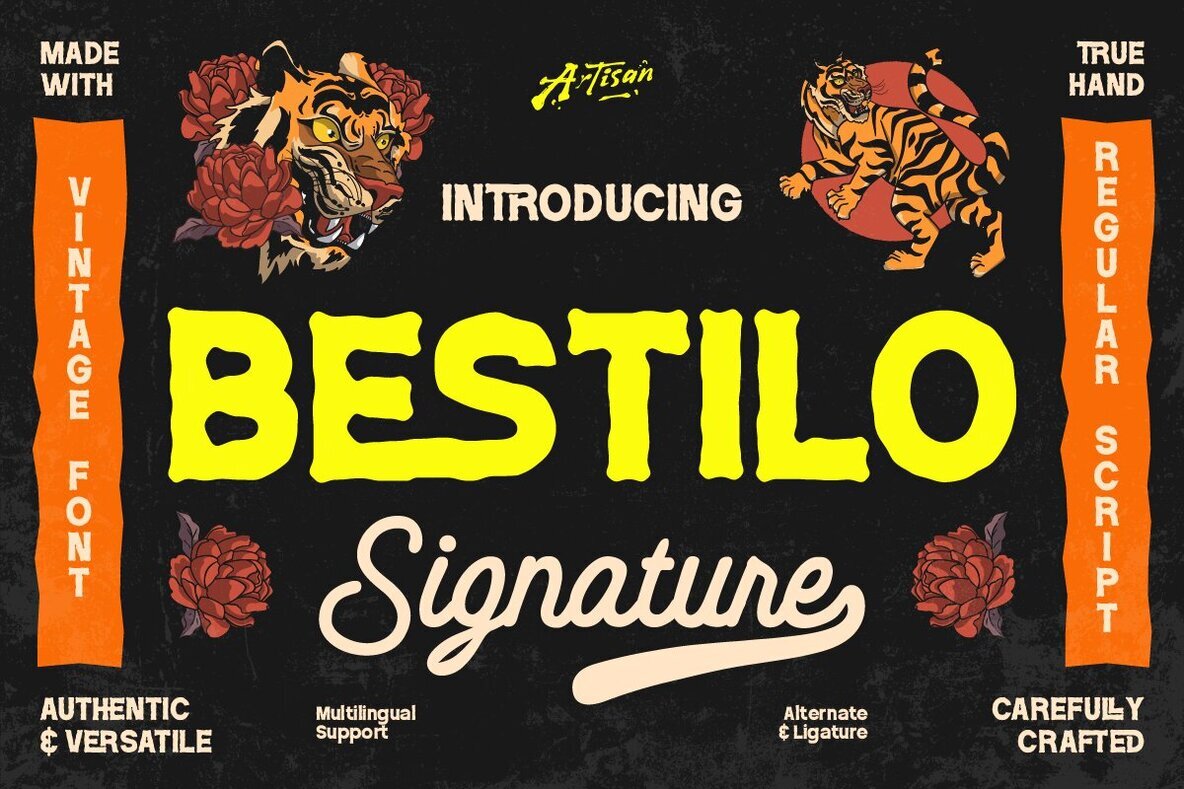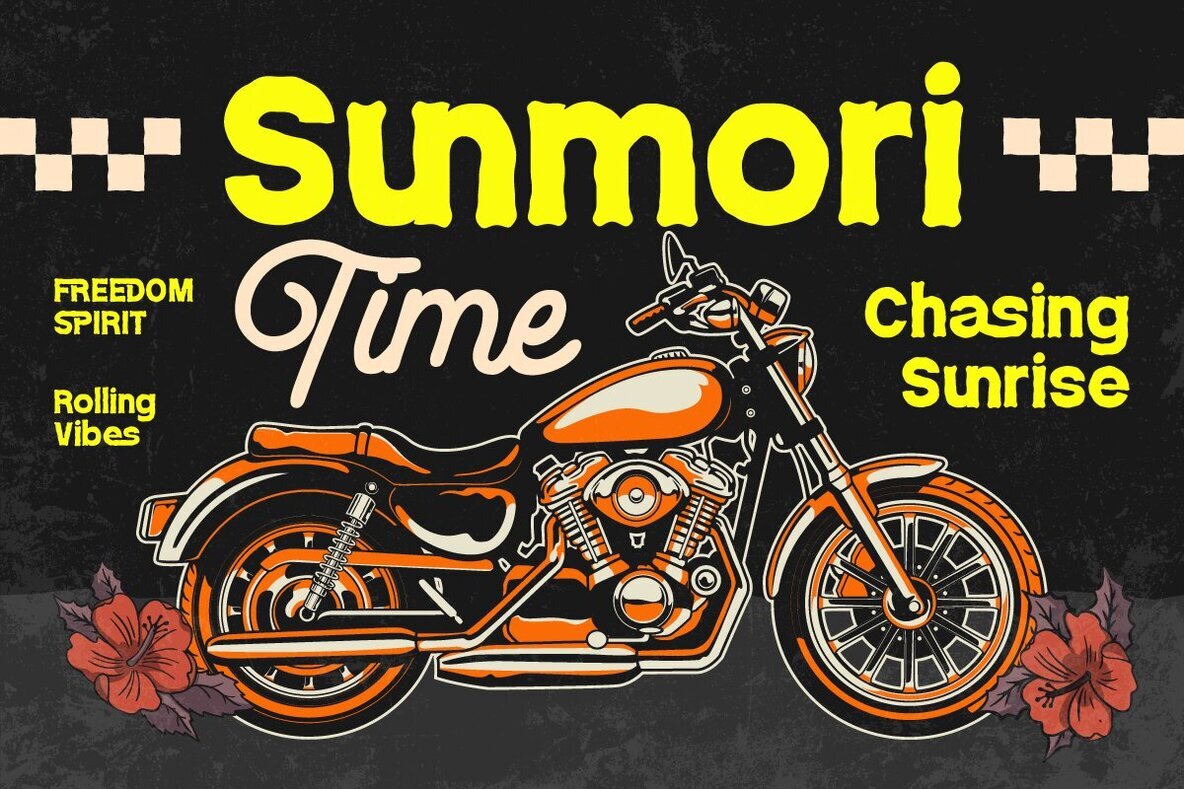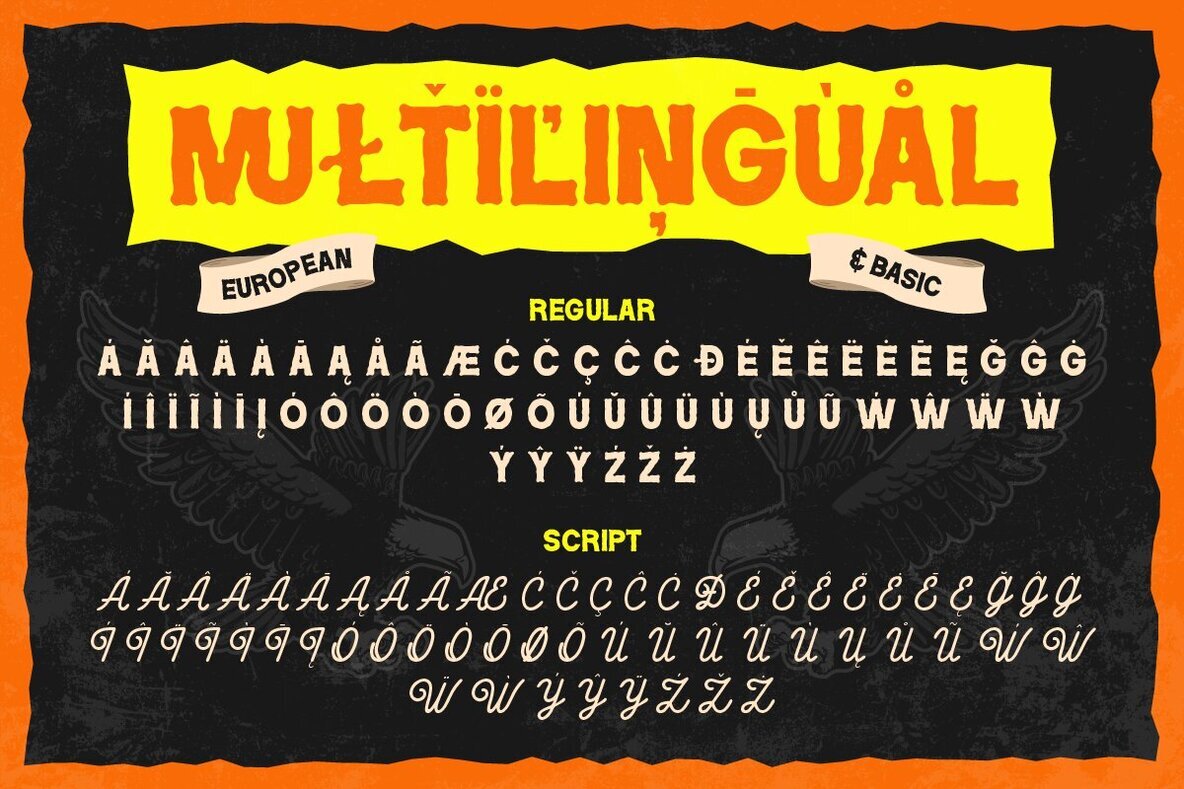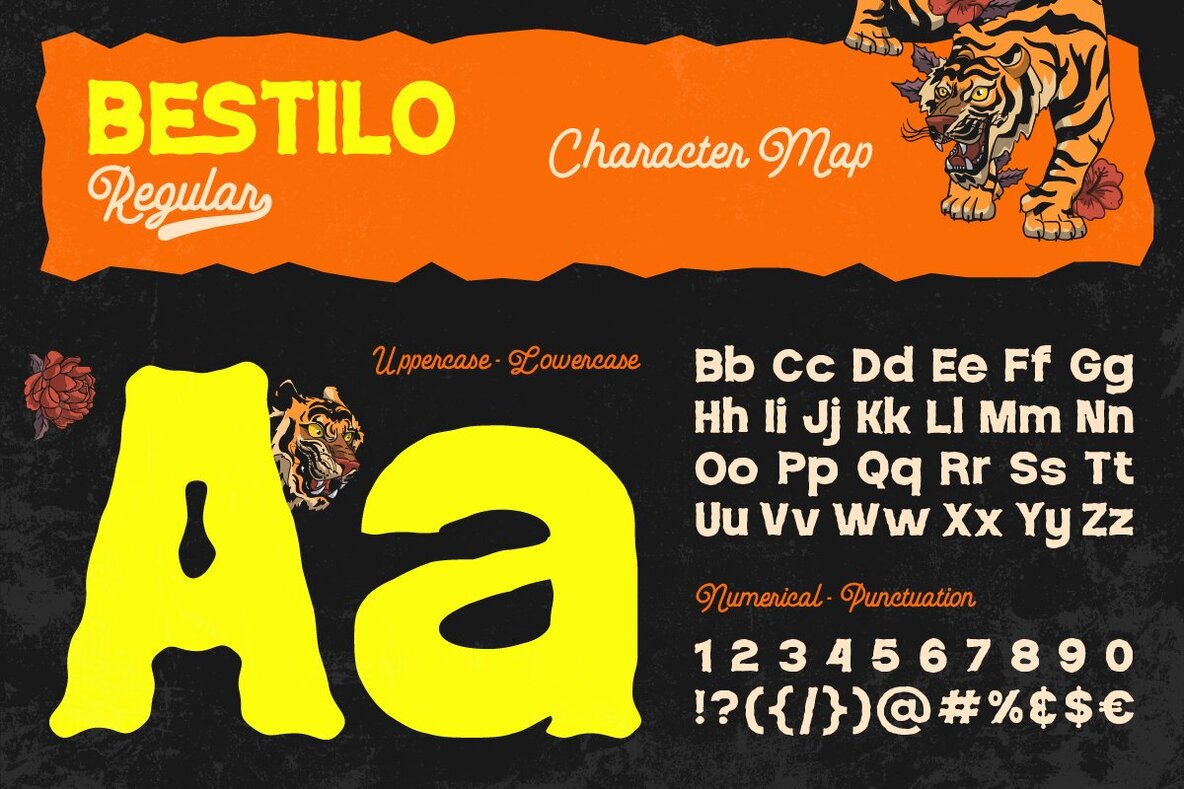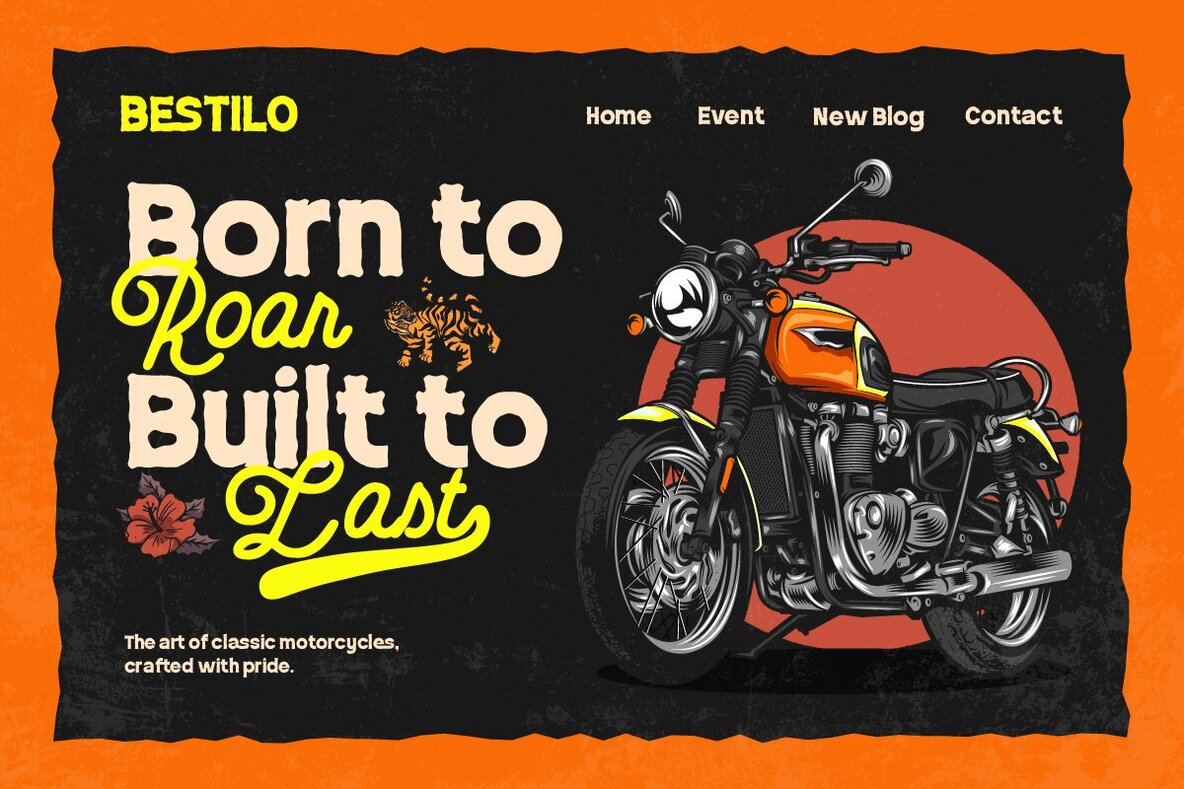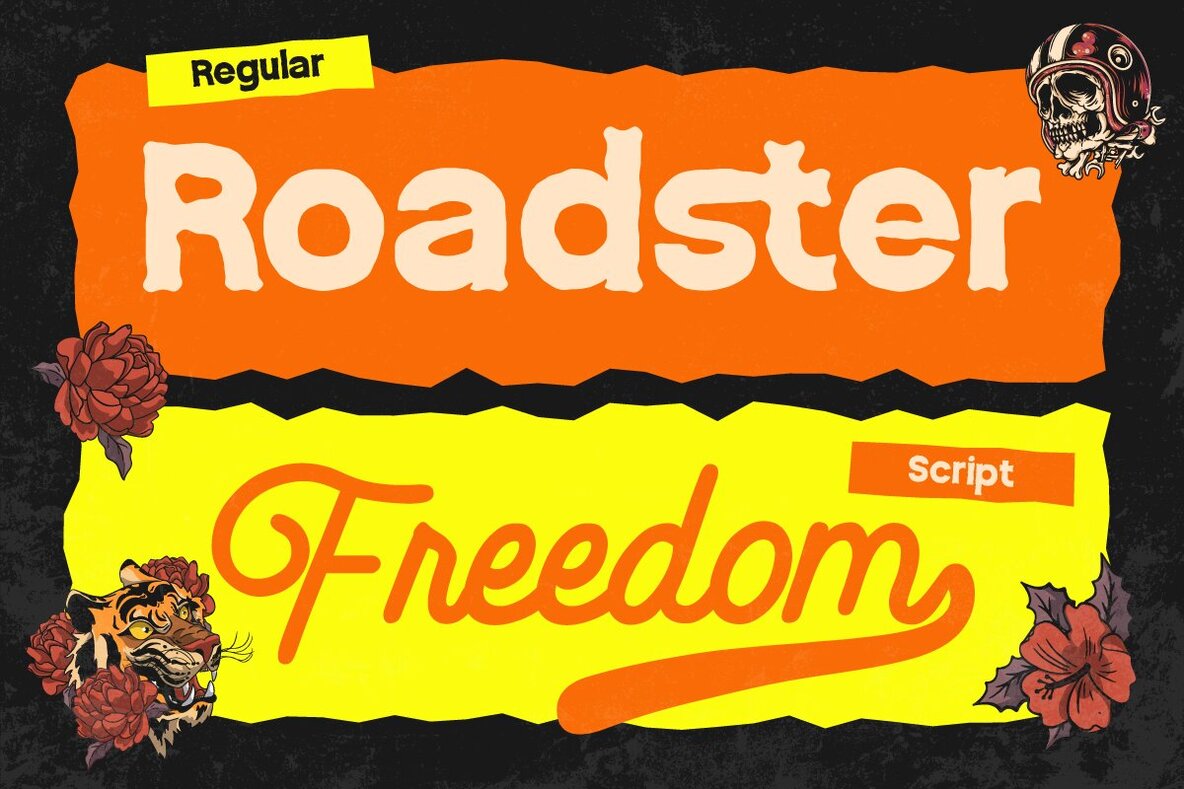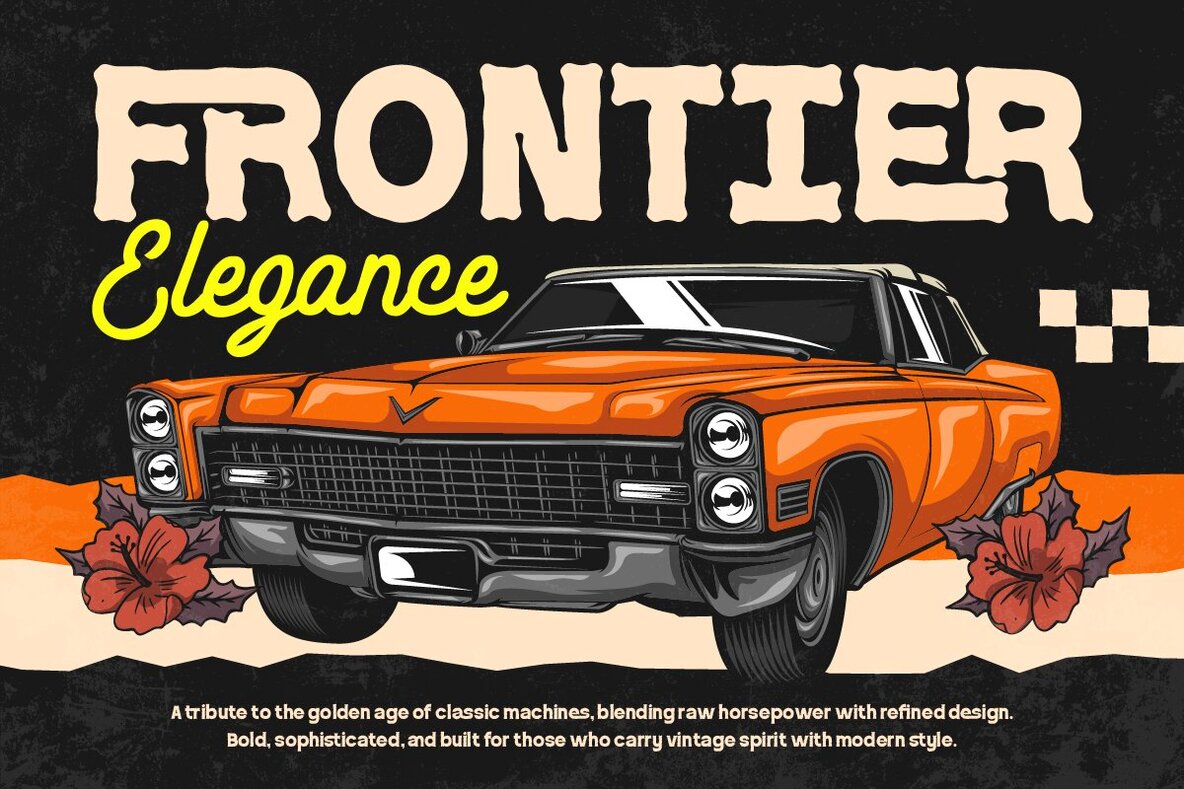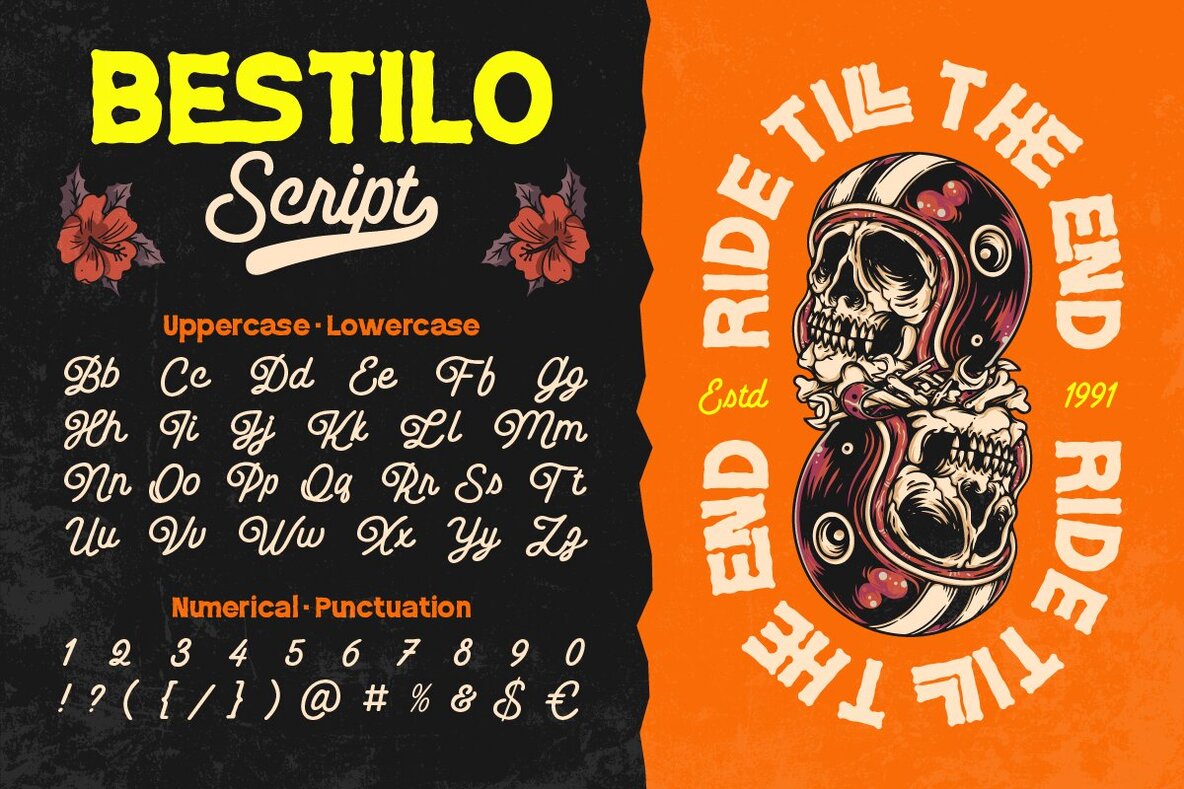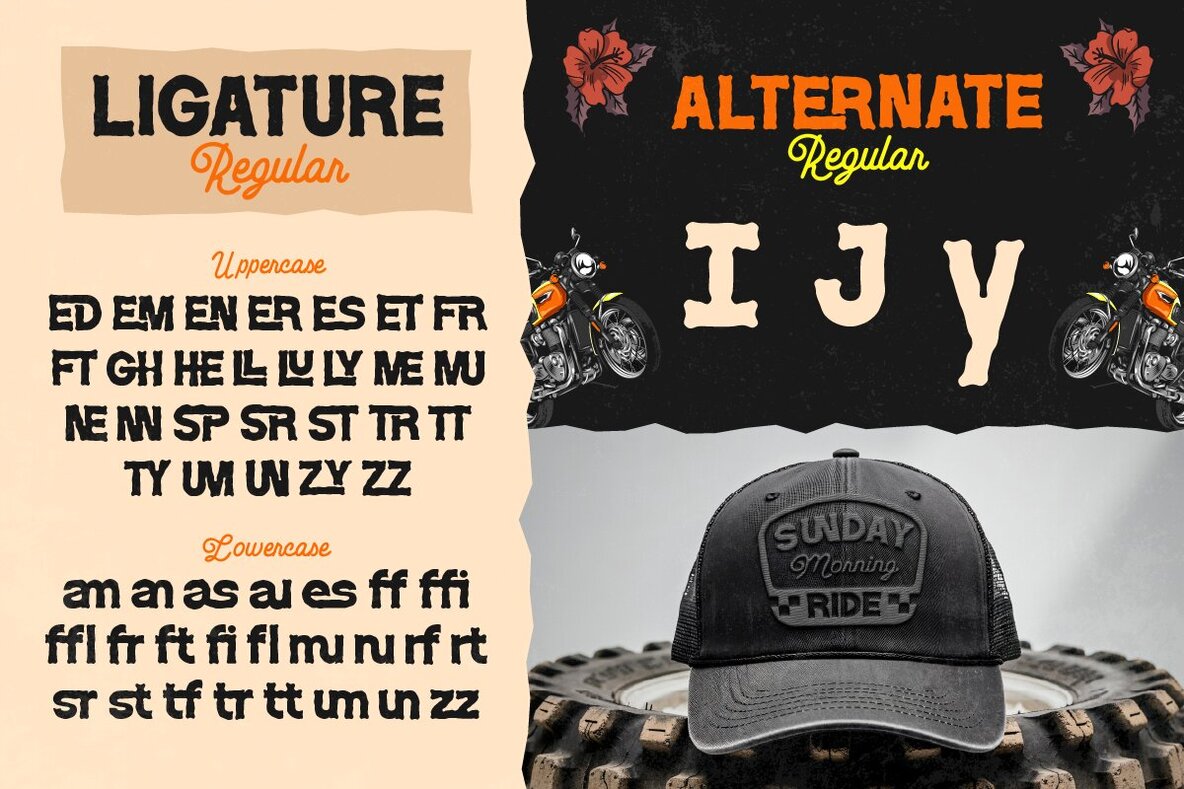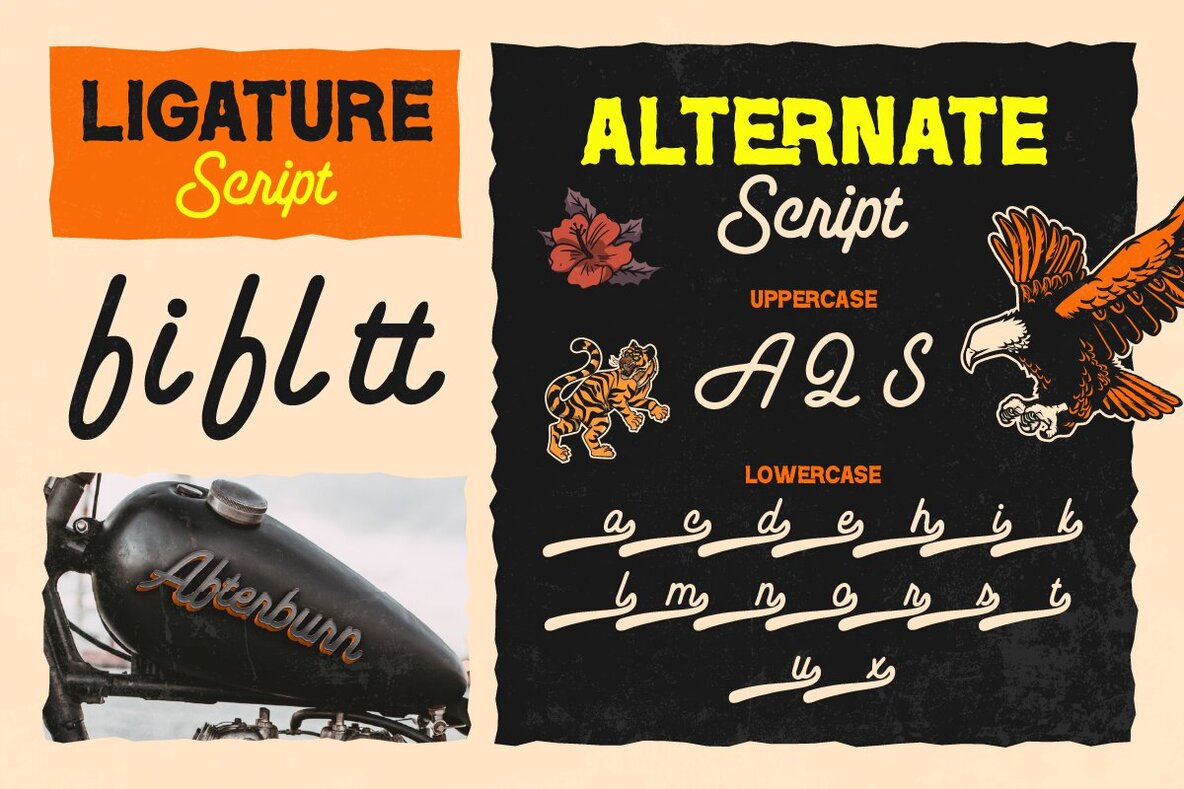
Bestilo Signature Font
Bestilo Signature combines the power of vintage-inspired boldness with the charm of smooth handwriting. Its regular style presents a rough, handcrafted appeal, ideal for impactful headlines, posters, and merchandise needing a touch of attitude. The script style provides a clean, flowing signature vibe that seamlessly integrates style and versatility. Together, these styles form a robust duo, blending boldness with an unmistakable class. Perfect for projects ranging from motorcycle themes and retro designs to apparel graphics and social media visuals, Bestilo Signature encapsulates a powerful aesthetic.Bestilo Signature: Bold Vintage Meets Smooth Handwriting